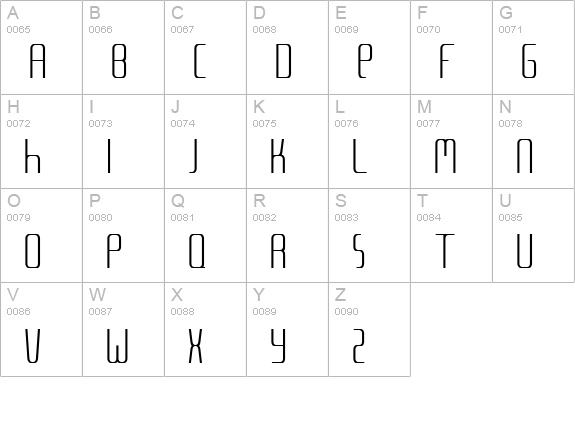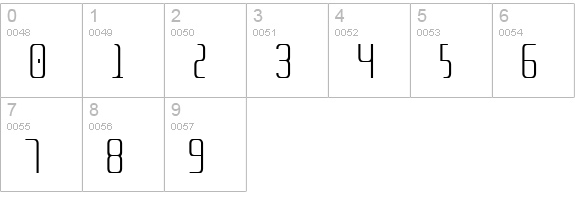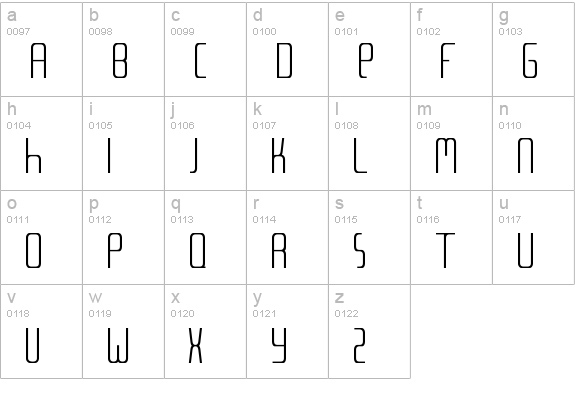
Meta Language Font Details
The Meta Language font is a modern and sleek typeface that exudes sophistication and elegance. With its clean lines and sharp edges, this font is perfect for creating a professional and polished look in any design project. The Meta Language font is versatile and can be used for a wide range of applications, from branding to editorial design. Best of all, the Meta Language font is completely free to download at FontsMarket.com. Whether you're a graphic designer, a content creator, or simply a font enthusiast, you can enjoy the beauty and versatility of the Meta Language font without any cost. Don't miss out on this opportunity to elevate your designs with this stunning and stylish typeface. Download the Meta Language font today and add a touch of sophistication to your projects.